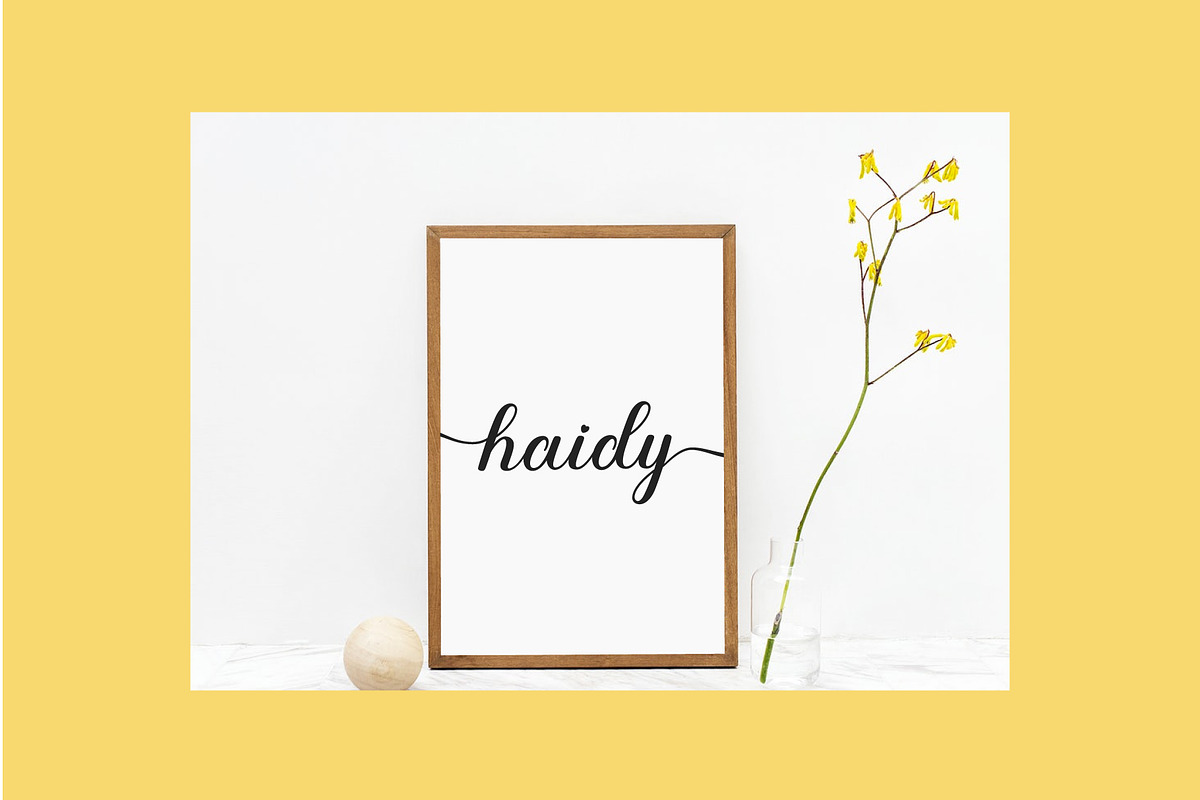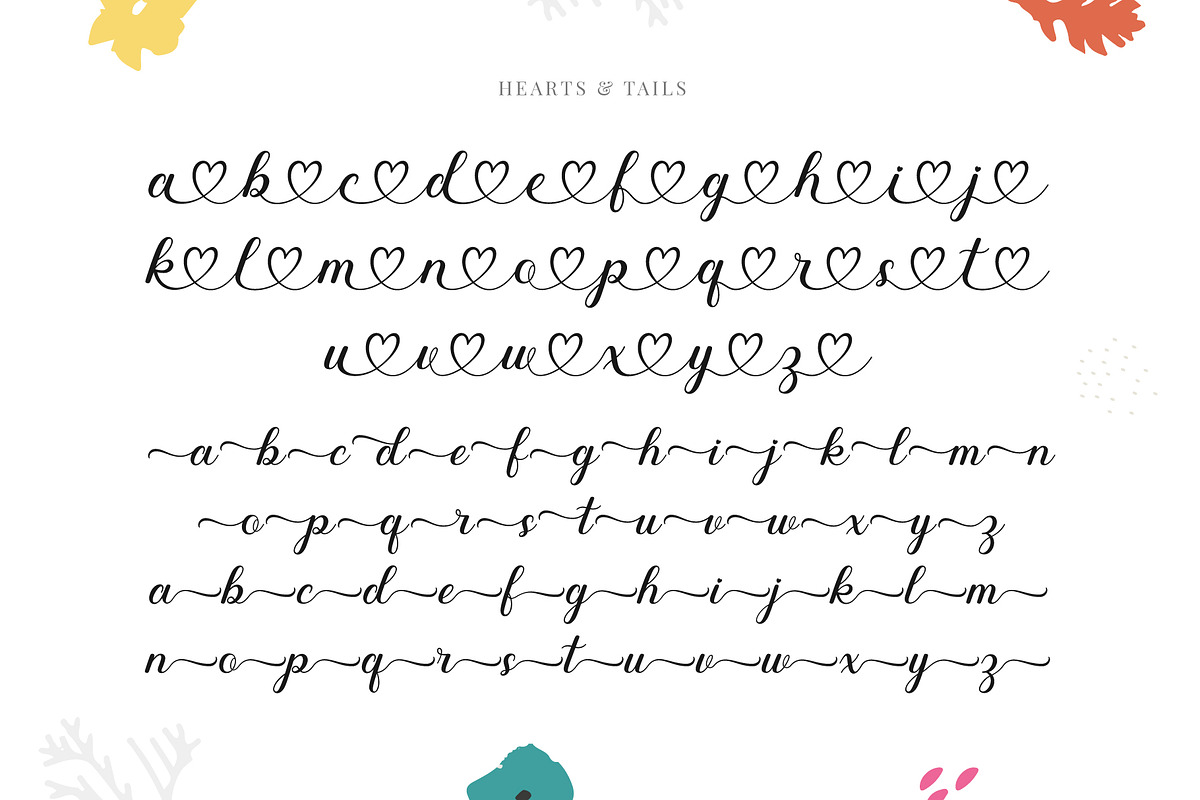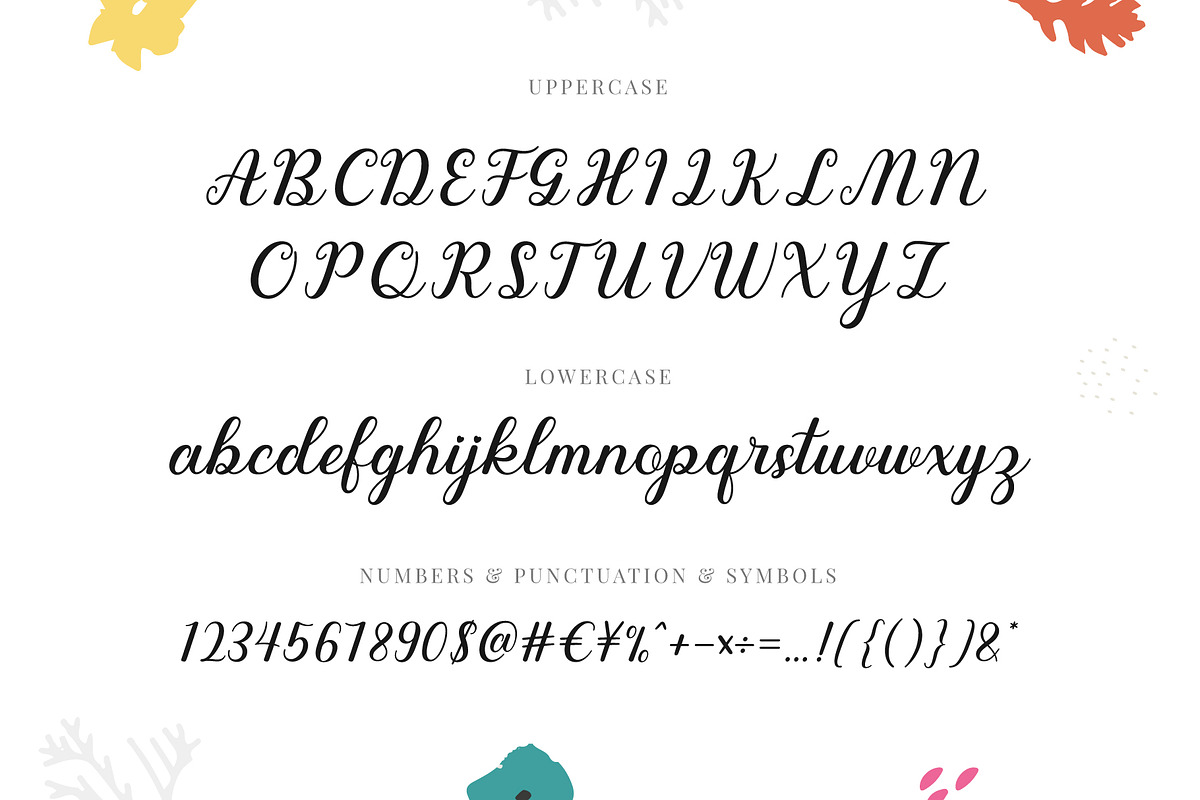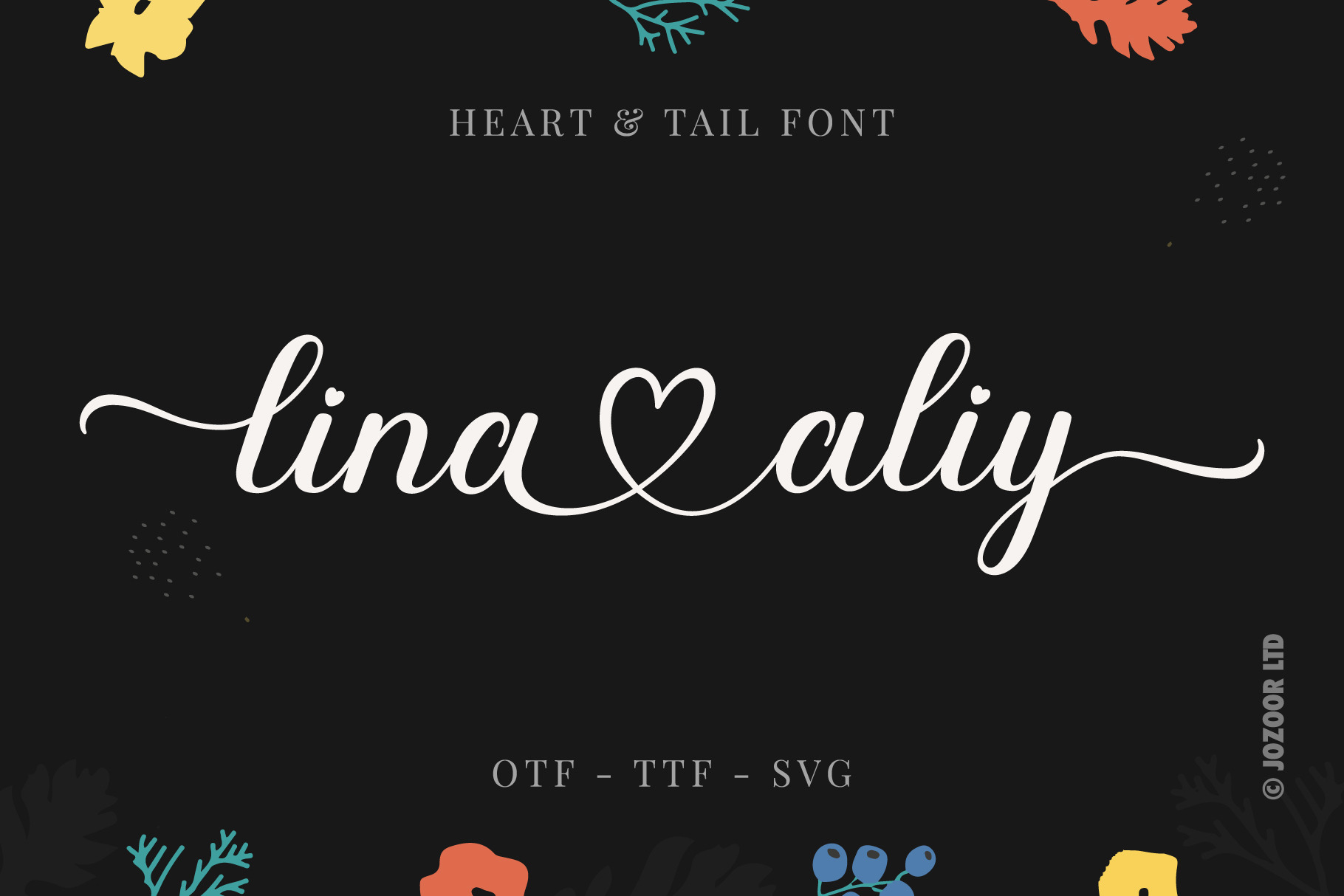
Habiby - Lovely Heart Script Font
Habiby is a lovely heart script font for wedding invitations, save the date cards, fine art papery, feminine branding, personal gift cards other romantic projects.
- Beginning swashes (tails).
- Ending swashes (tails).
- Connecting hearts.